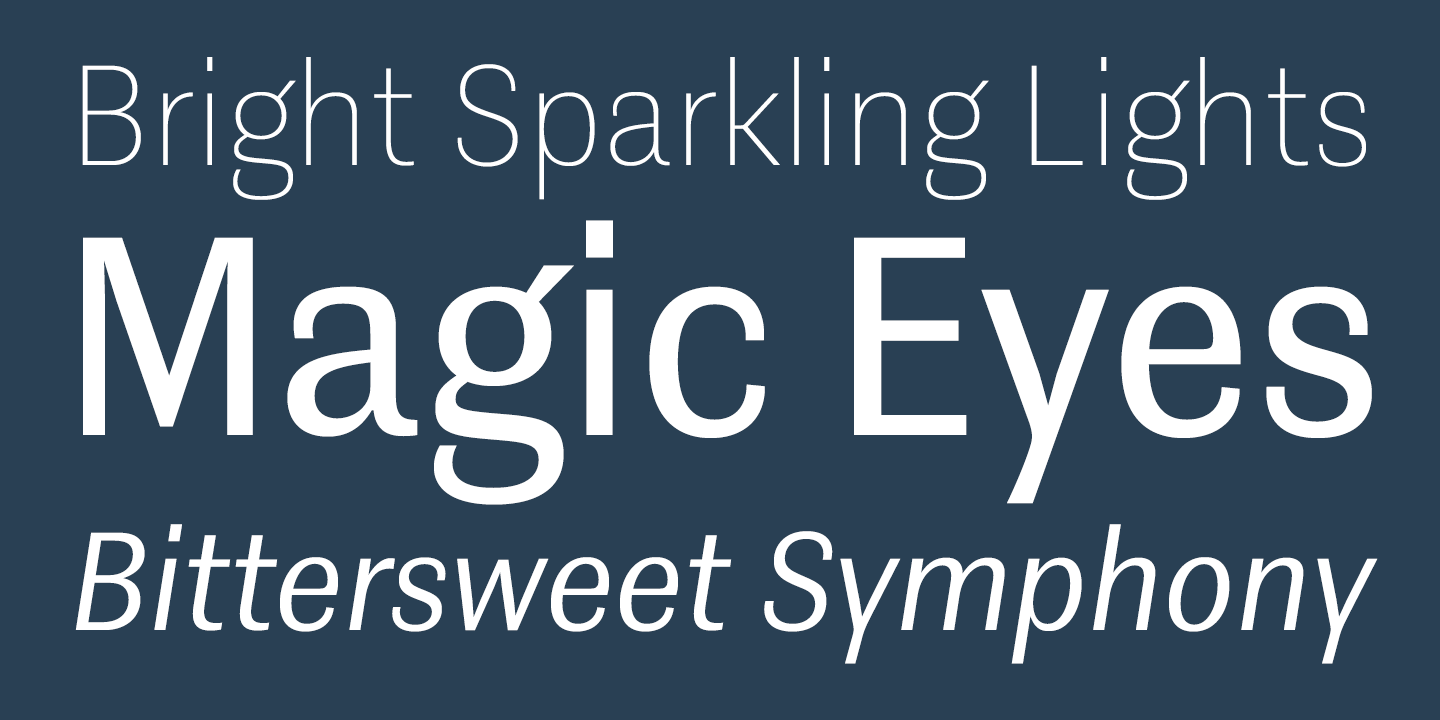
Contemporary Sans Font is excellent for modern corporate branding, tech startup logos, minimalist web design, professional presentations, clean advertising campaigns, architectural signage, contemporary art galleries, modern retail packaging, digital interfaces, and sleek editorial layouts.
What makes Contemporary Sans Font exciting is its perfect embodiment of current design trends that seamlessly blends geometric precision with humanistic warmth to create exceptional versatility for today's design challenges. This typeface features refined sans-serif letterforms with optimal proportions and subtle contemporary details that ensure outstanding readability across all digital and print media. The font's modern aesthetic and technical excellence make it ideal for forward-thinking brands seeking to project innovation, clarity, and sophisticated professionalism in their communications.
Contemporary Sans Font family includes comprehensive weight options: Thin, Light, Regular, Medium, Bold, and Black variants, each available in Roman and Italic styles. The family also features condensed variants and extended character sets that support multiple languages and provide complete typographic flexibility for global branding applications.
Design agencies and modern corporations consistently select Contemporary Sans Font Free Download for projects requiring cutting-edge aesthetics and universal appeal. The font's contemporary excellence excels in both digital interfaces and traditional print applications, making it perfect for comprehensive brand systems that span multiple platforms and touchpoints. Whether you're designing for technology companies, modern retail brands, or progressive organizations, this sophisticated typeface delivers the contemporary elegance and functional reliability that resonates with today's design-conscious audiences seeking authentic modernity and timeless sophistication.